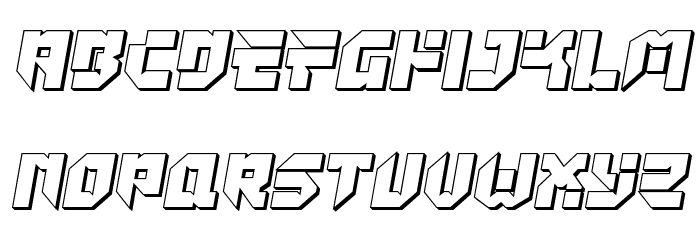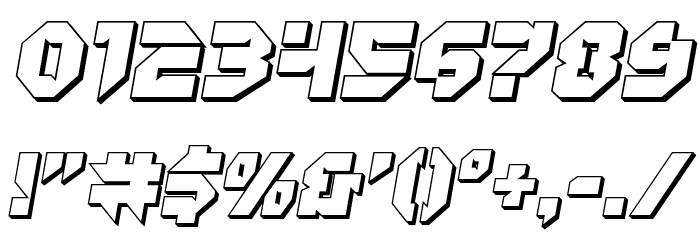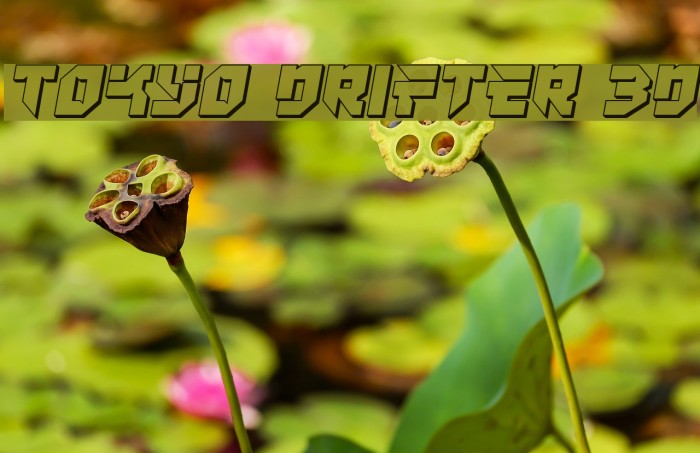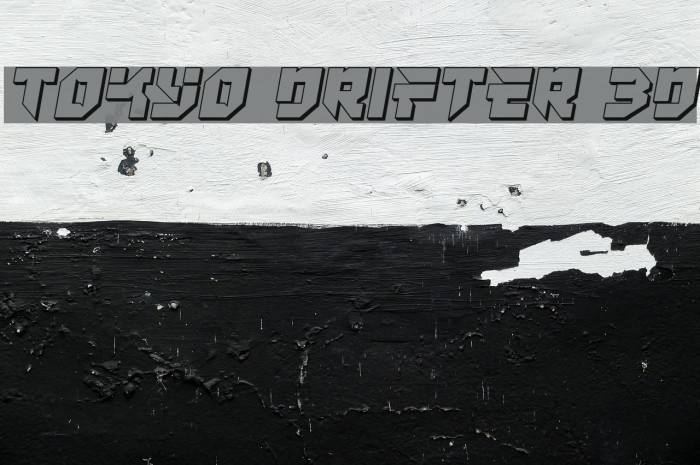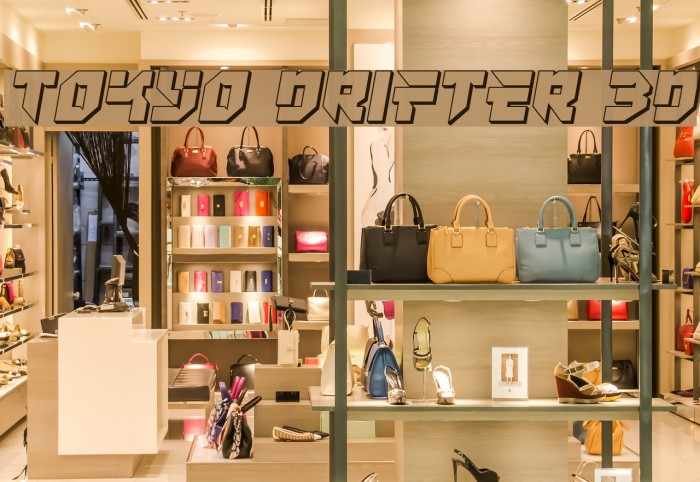
Tokyo Drifter 3D Font
This font features a bold, geometric design with a three-dimensional effect that gives it a futuristic and dynamic appearance. The characters are constructed with sharp angles and clean lines, creating a sense of movement and depth. The font's style is reminiscent of digital or sci-fi themes, making it ideal for projects that require a modern and edgy look. The uppercase and lowercase letters maintain a consistent style, with numbers and special characters following the same design principles. The overall impression is one of strength and innovation, suitable for attention-grabbing headlines or logos.
A bold, geometric 3D font with a futuristic and dynamic style.
- Font: Tokyo Drifter 3D
- Proposed Projects: Ideal for sci-fi themed designs, video game titles, tech company logos, and modern posters.